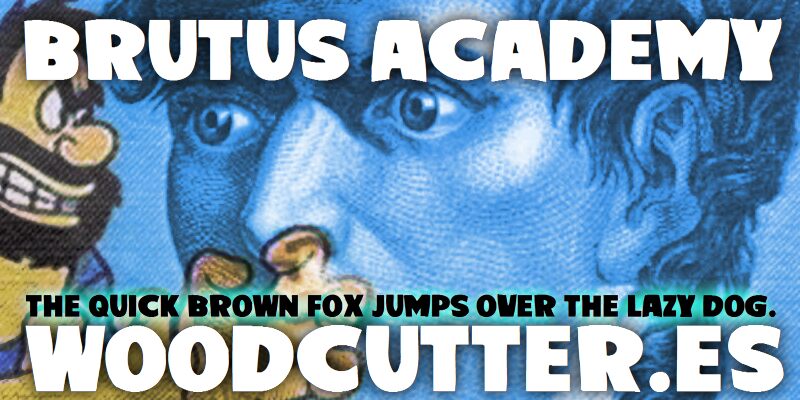
Brutus Academy
Looking for a fun and quirky font that can add a touch of whimsy to your design projects? Look no further than Brutus Academy, a display font designed by Woodcutter Manero. With its extra-bold weight and comic style, this font is perfect for creating attention-grabbing headlines, posters, and advertisements. Use it to inject some personality into your branding materials or to add a playful touch to your website or social media graphics. Whether you're designing for a kids' event or just looking for something unique and eye-catching, Brutus Academy is sure to deliver the impact you're looking for.